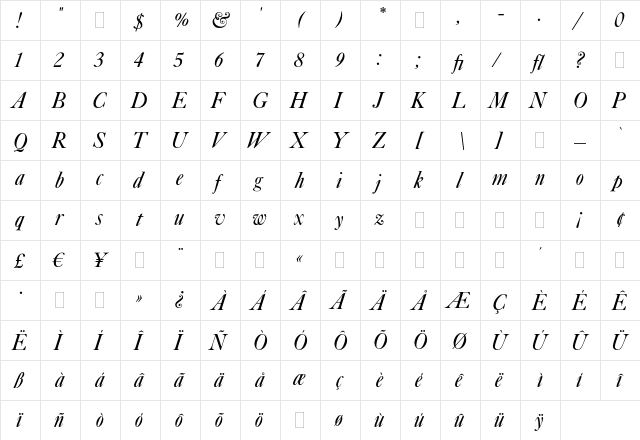
Caslon Italic Plain
Design Context for Caslon Italic Typeface
Caslon Italic is a composed and adaptable typeface that performs quietly and consistently across a wide range of design contexts. Its italic angle brings a sense of urgency and motion to the letterforms.
Pro Tip: Try Caslon Italic for annotation and caption copy alongside an upright companion — the contrast in angle creates a dynamic but ordered typographic system.